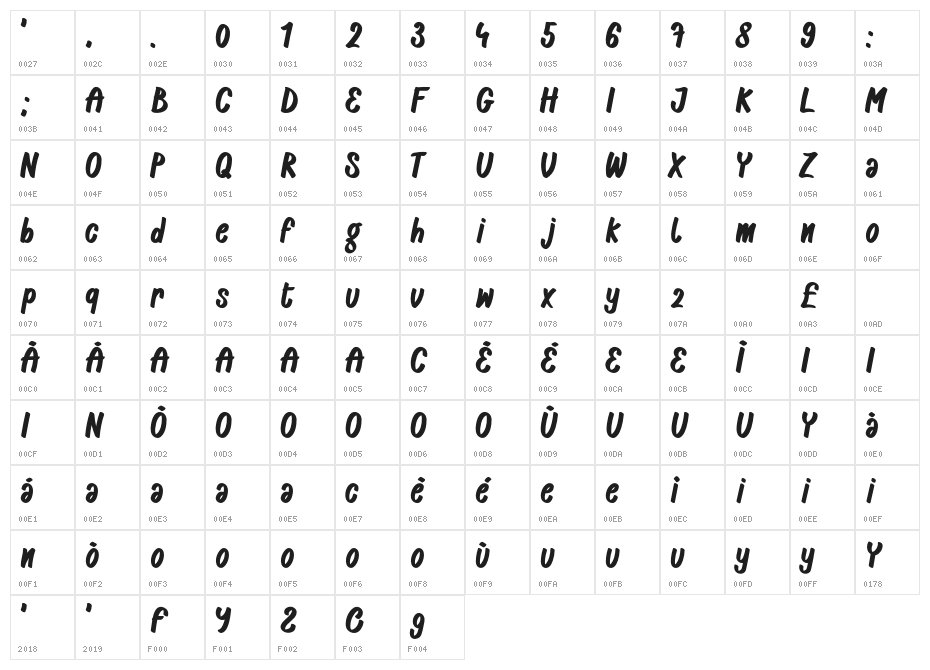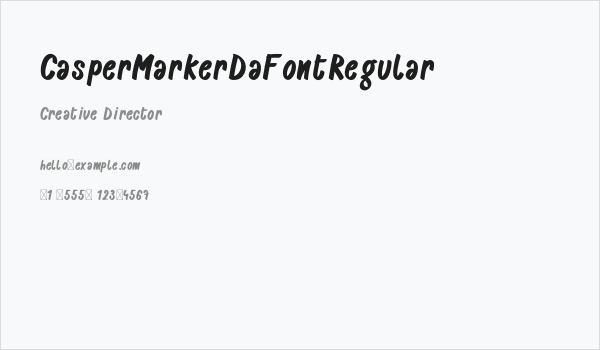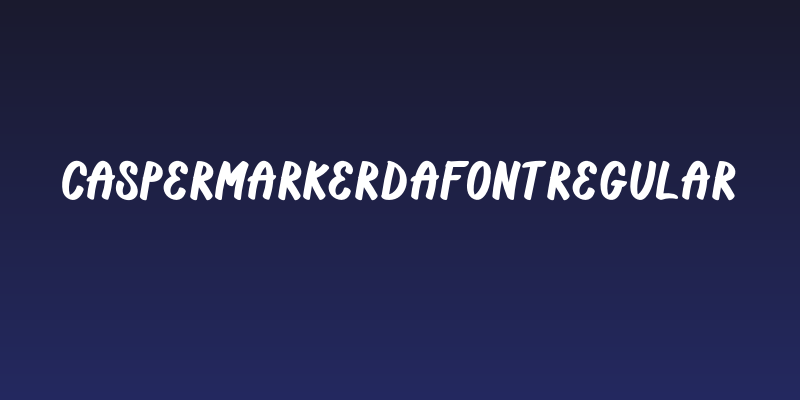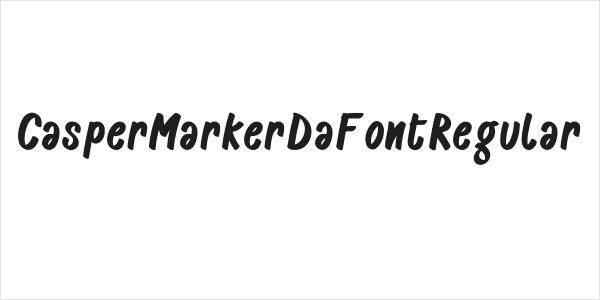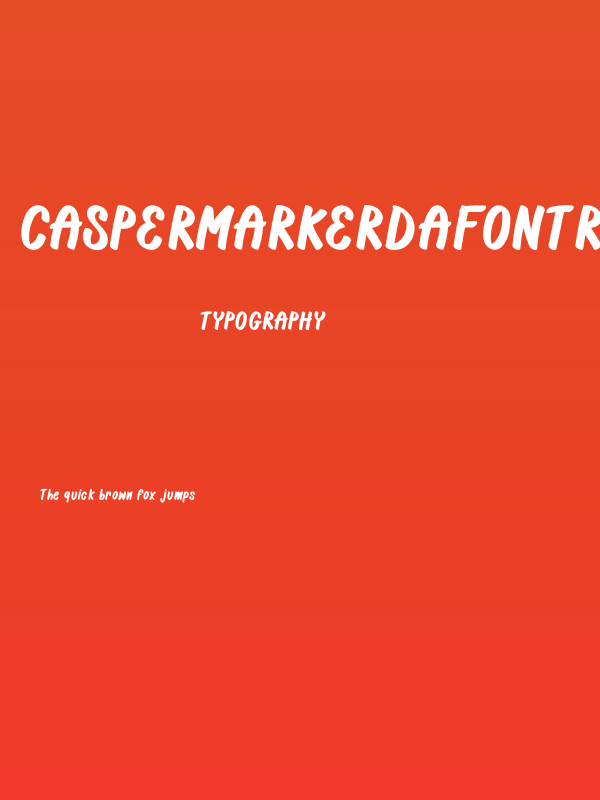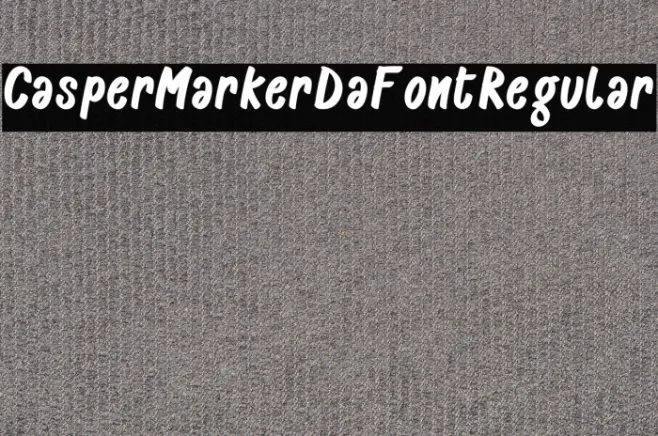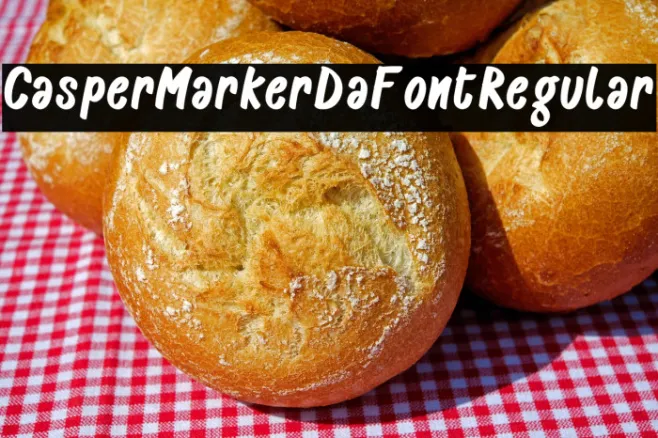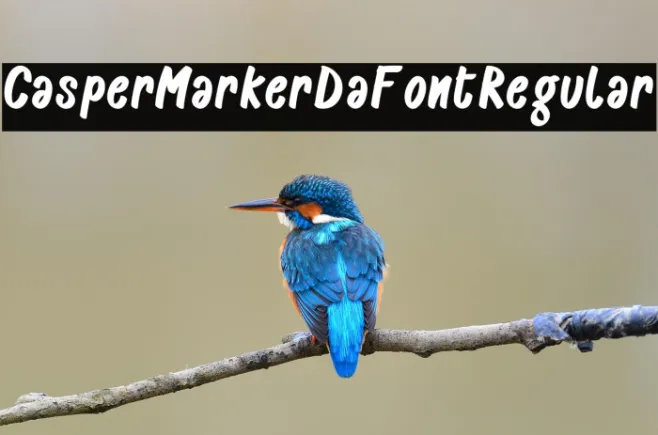
CasperMarkerDaFontRegular Font
CasperMarkerDaFontRegular Description
This font features a bold and playful handwritten style, characterized by its thick strokes and smooth curves. The uppercase and lowercase letters maintain a consistent flow, giving it a casual yet impactful appearance. The numbers and special characters follow the same design ethos, ensuring uniformity across all glyphs. Its boldness makes it stand out, while the rounded edges add a friendly and approachable feel. The font is versatile, suitable for various creative projects that require a personal touch.
| Overall Style | Playful, Casual |
| Proposed Projects | Ideal for greeting cards, children's books, playful branding, and social media graphics. |